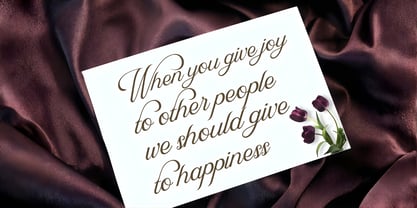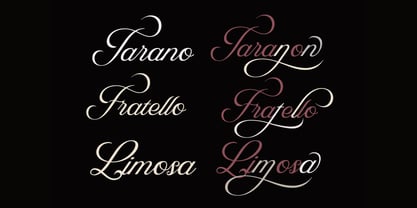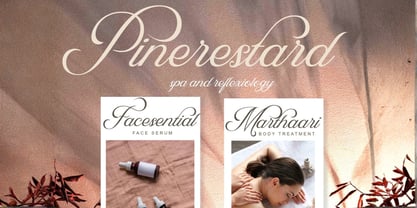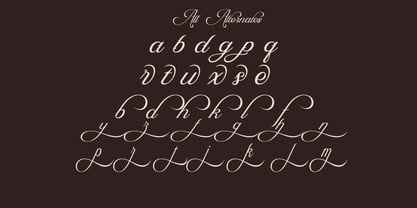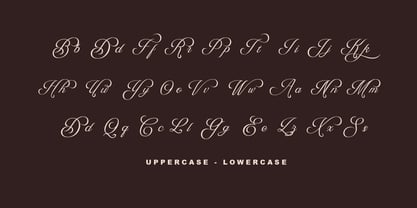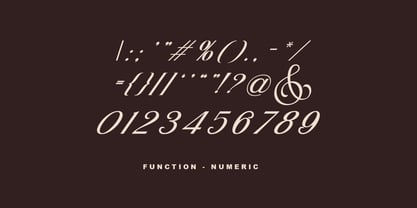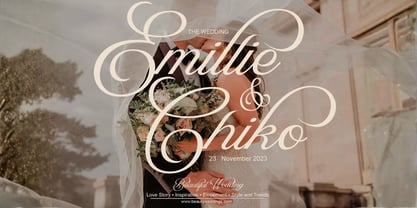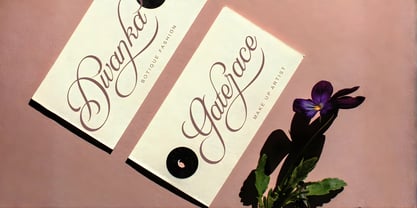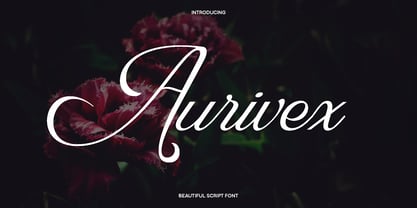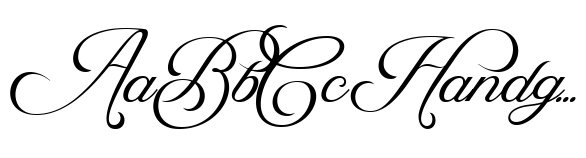
Aurivex
The Aurivex Font Family was designed by Olivia Love and published by Only Fonts. Aurivex contains 1 styles. More about this family
Aurivex is a refined display typeface that fuses sculpted elegance with contemporary clarity, designed to make words feel luminous, confident, and memorable. Its letterforms balance crisp geometry with subtle curves, creating a poised voice that suits premium brands, polished editorials, and campaigns that want sophistication without stiffness. Set it large for striking headlines, graceful logos, and packaging; set it medium for titles, callouts, and navigational labels that read clean in print and digital. The rhythm is purposeful, spacing is tuned for display impact, and the overall tone is modern yet timeless. Where it shines: - Editorial and publishing: magazine covers, feature titles, chapter openers, and pull quotes that need presence and polish. - Branding and identity: luxury marks, fashion wordmarks, tech, wellness, hospitality, and boutique packaging systems. - Marketing and events: posters, hero banners, social graphics, and ads that demand high contrast and immediate recognition. - Content and imagery: blog headers, photography overlays, and quotes that call for clarity with a crafted finish. Standout features: - Complete uppercase and lowercase designed for harmonious hierarchy, from striking caps to expressive small forms. - Clean lining numerals suited for dates, pricing, and editorial numeration. - Functional construction optimized for display sizes, maintaining crisp edges and consistent texture. - Multilingual support to extend a unified brand voice across markets. - Stylistic details that add nuance to headlines and logotypes, enabling a custom look without extra effort. Use Aurivex to tell a modern story with elegance and control. It elevates books and magazines, logos and branding, photography captions, quotes, blog headers, posters, advertisements, and more whenever you need a confident, contemporary display voice that feels crafted and clear.